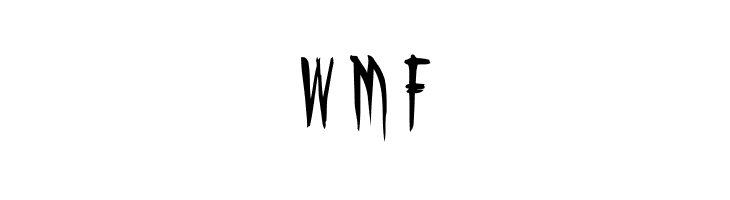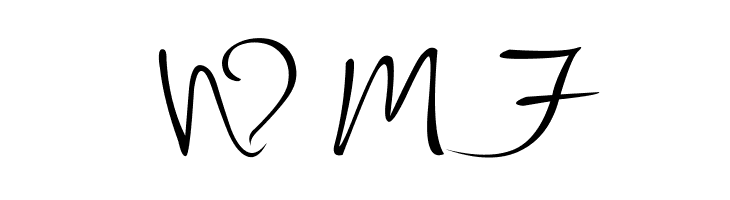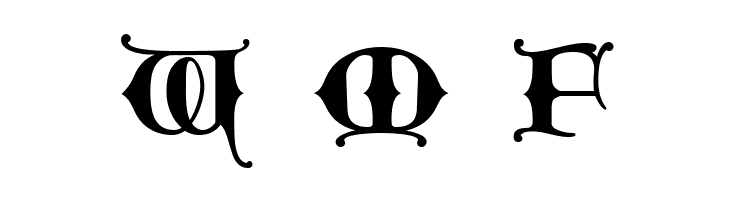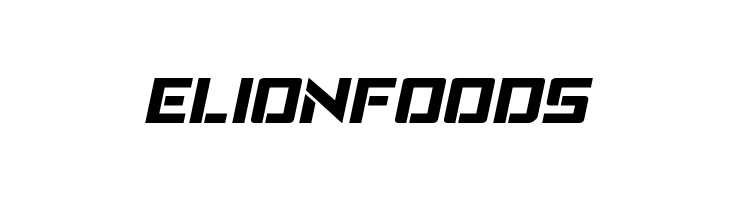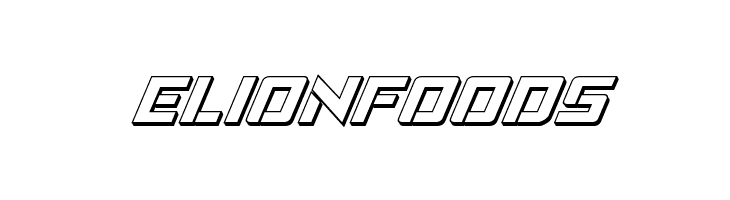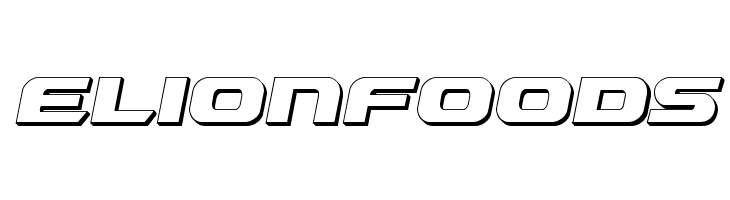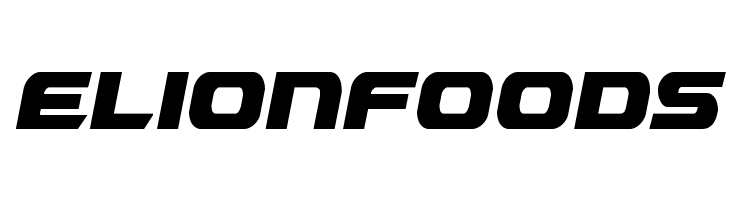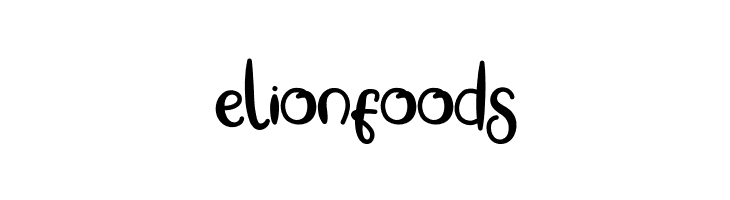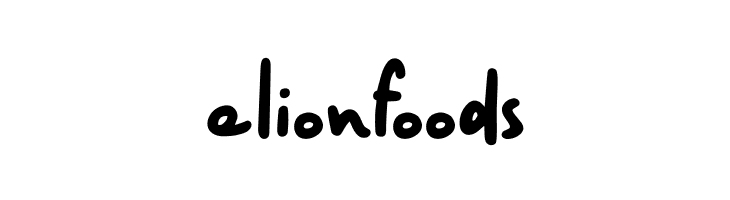
A bold, futuristic font with geometric, stencil-like characters.
A bold, angular, and slightly italicized font with a futuristic and dynamic style.
A bold, outlined, italic font with angular, geometric characters.
A bold, 3D italic font with a modern, angular design.
A futuristic, angular font with a sleek and modern design.
A bold, 3D outlined font with a futuristic and dynamic style.
A bold, condensed font with a futuristic and angular design.
A playful handwritten font with rounded, dynamic strokes.
A bold, playful handwritten font with rounded, casual letterforms.
A bold, brush-style script with an energetic, hand-painted look.
A bold, geometric font with a playful, modern style.
A spooky, playful font with jagged, irregular characters perfect for Halloween themes.
A playful, handwritten font with tall, narrow letters and fluid strokes.
A bold, playful font with dynamic shapes and a hand-drawn feel.
A playful, hand-drawn script font with connected letters and a dynamic style.
A playful, bold font with rounded, thick strokes and a whimsical touch.
A playful, hand-drawn font with rounded, whimsical characters.
A dynamic and fluid script font with elegant, flowing letterforms.
A whimsical, hand-drawn font with an eerie, rustic charm.